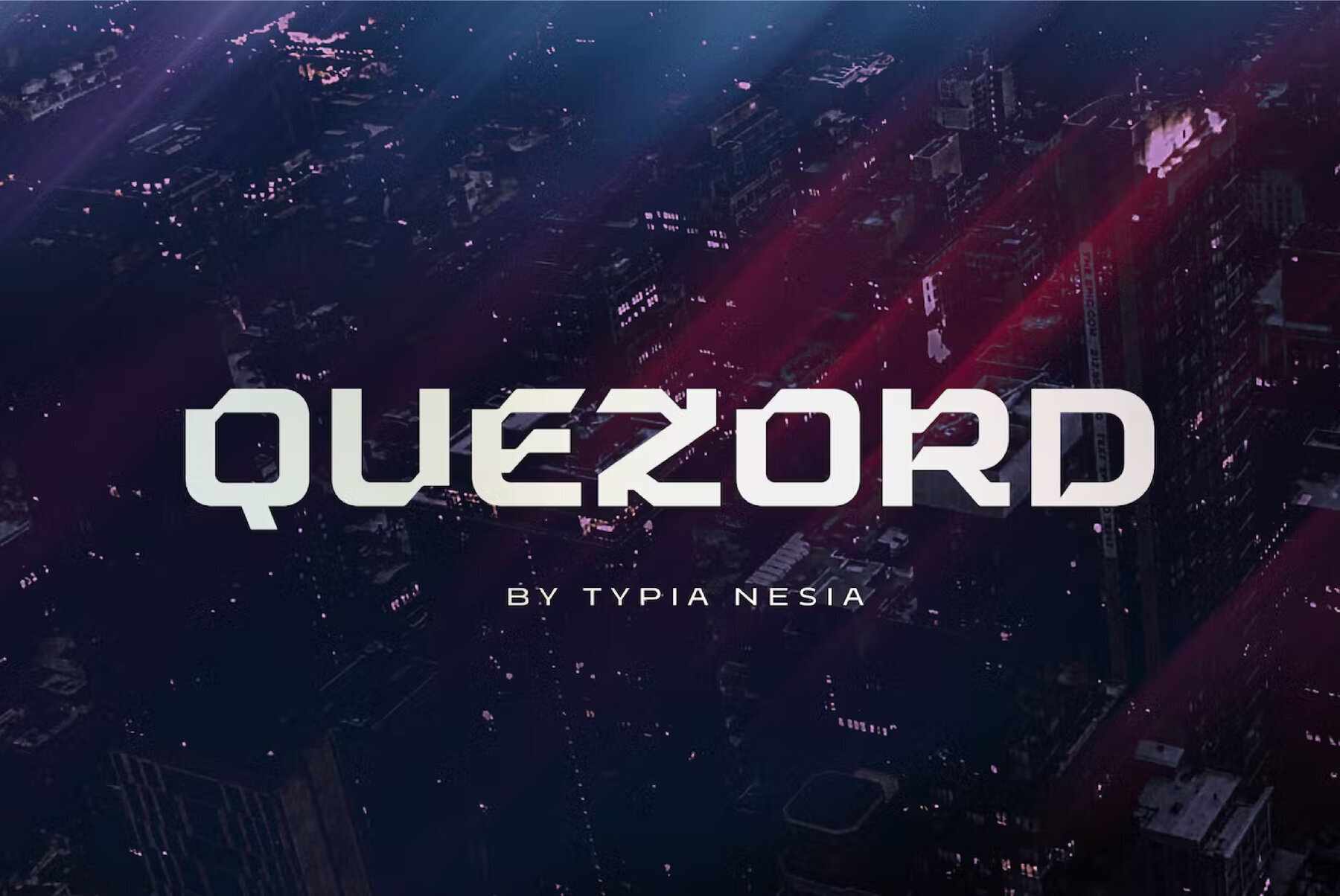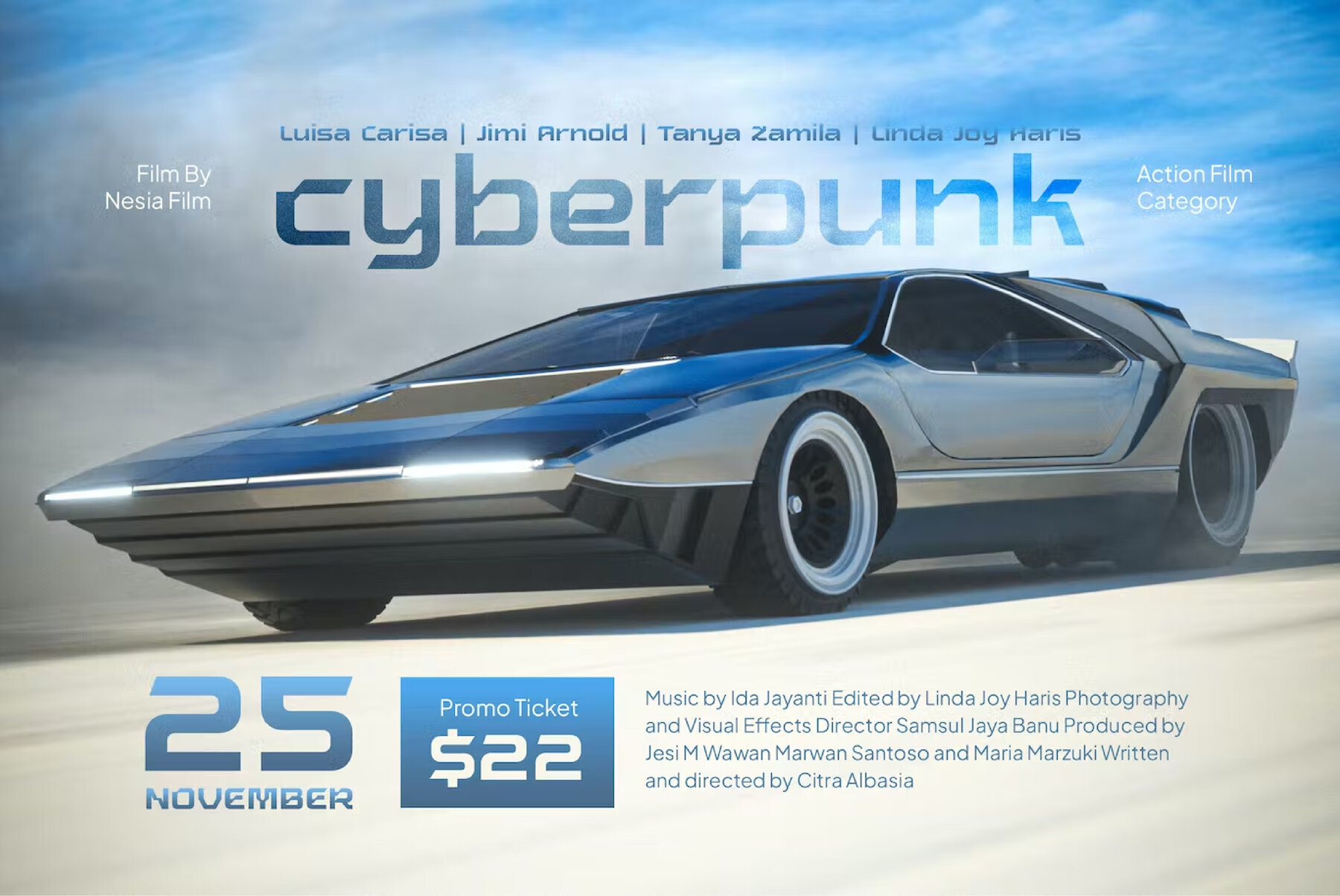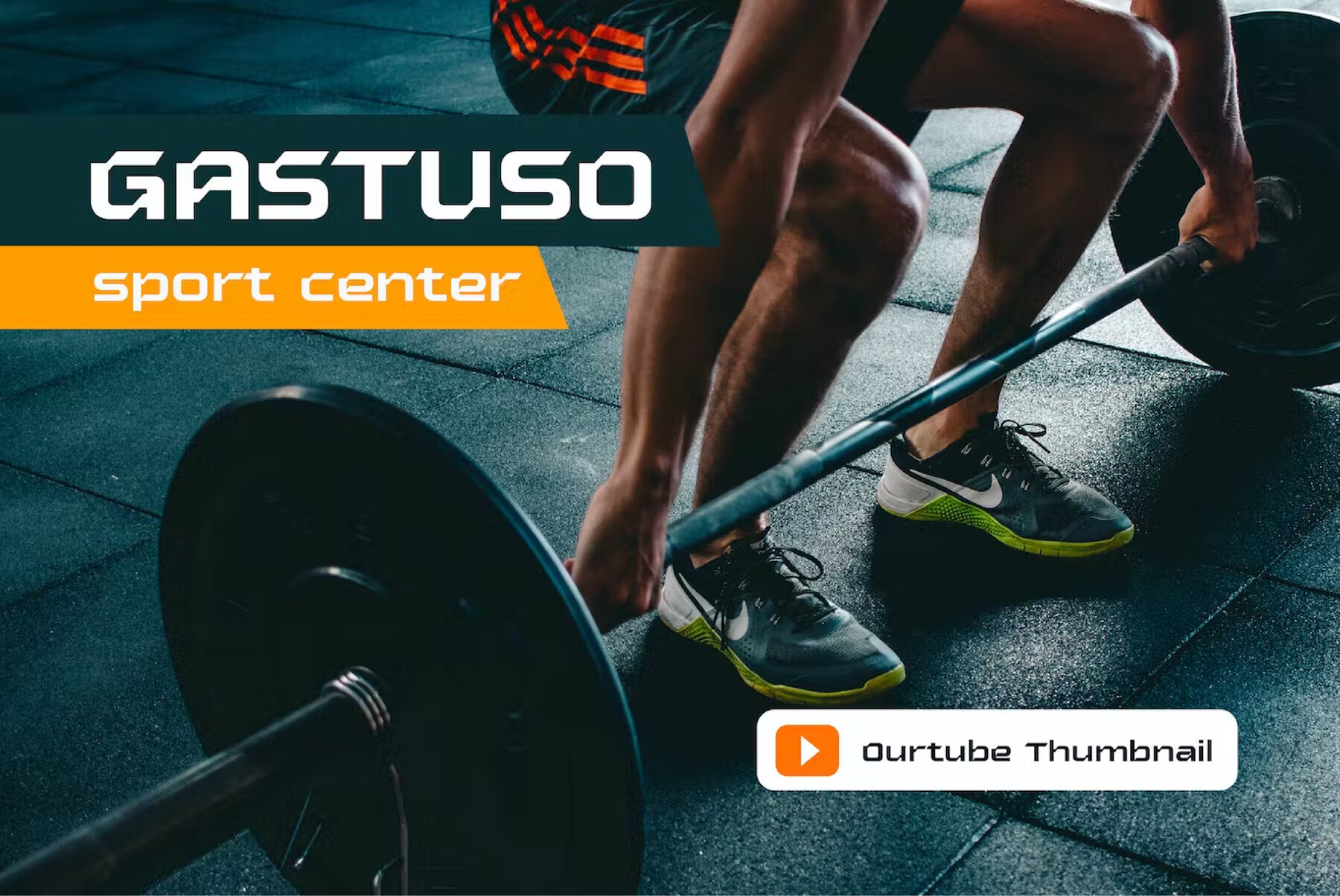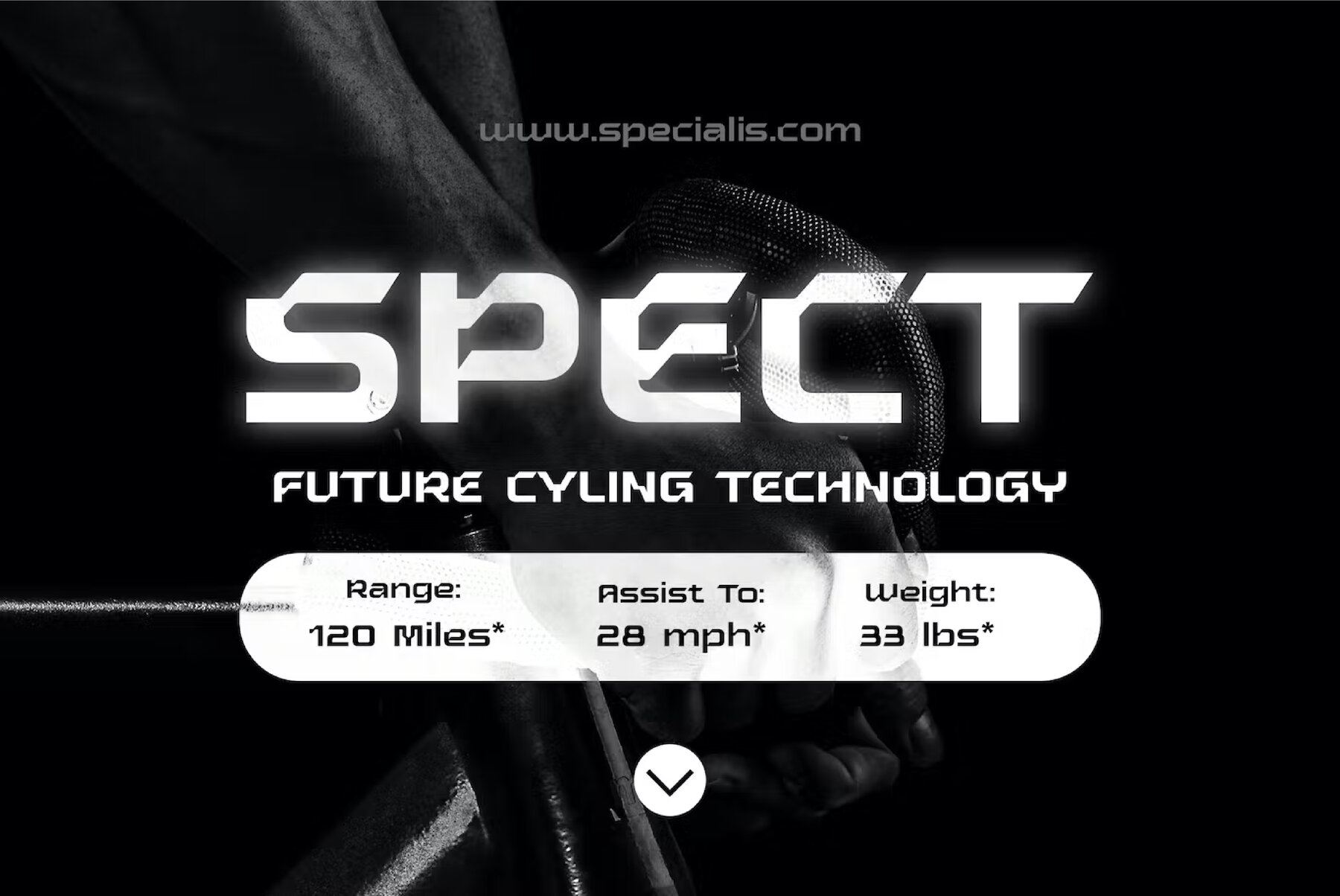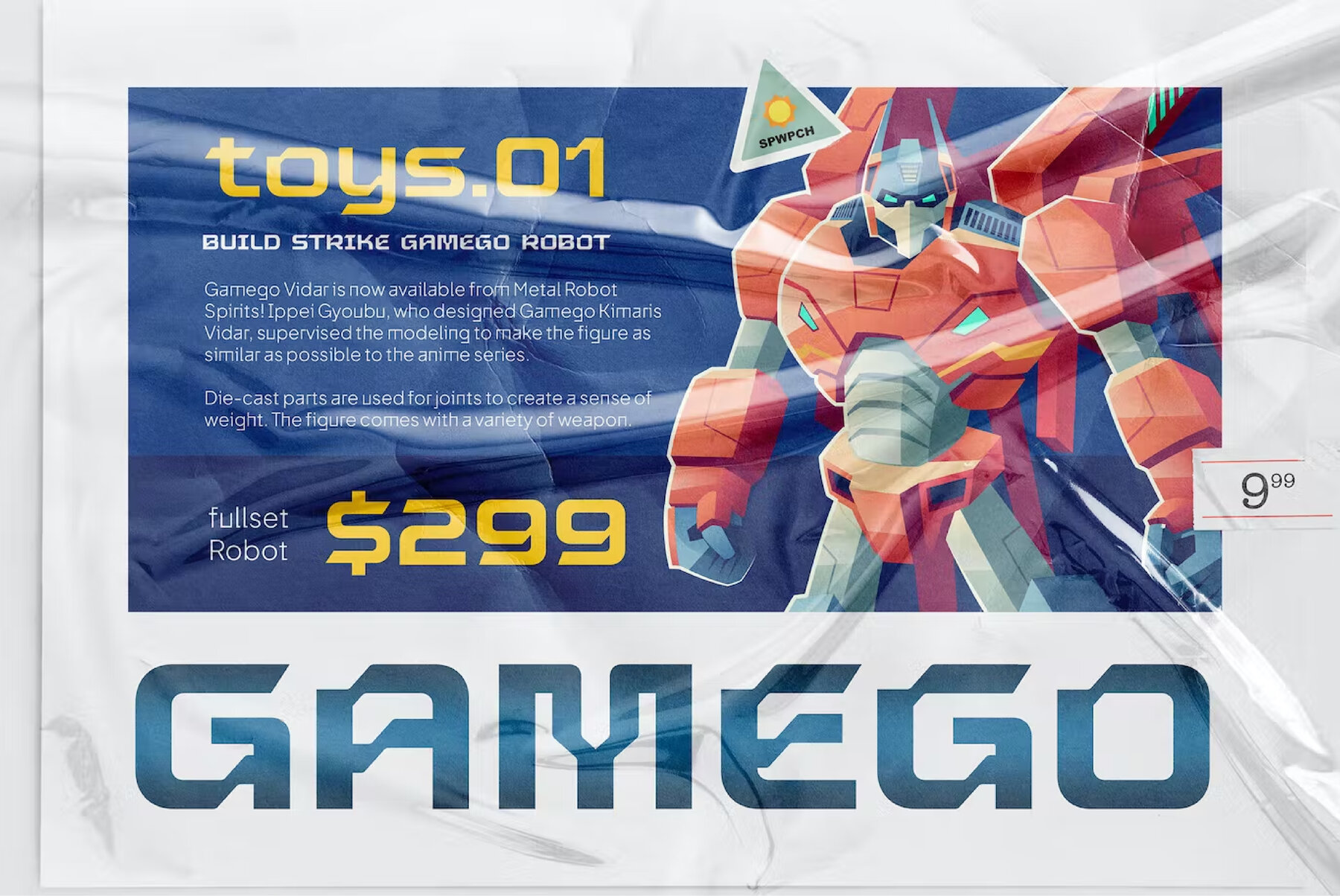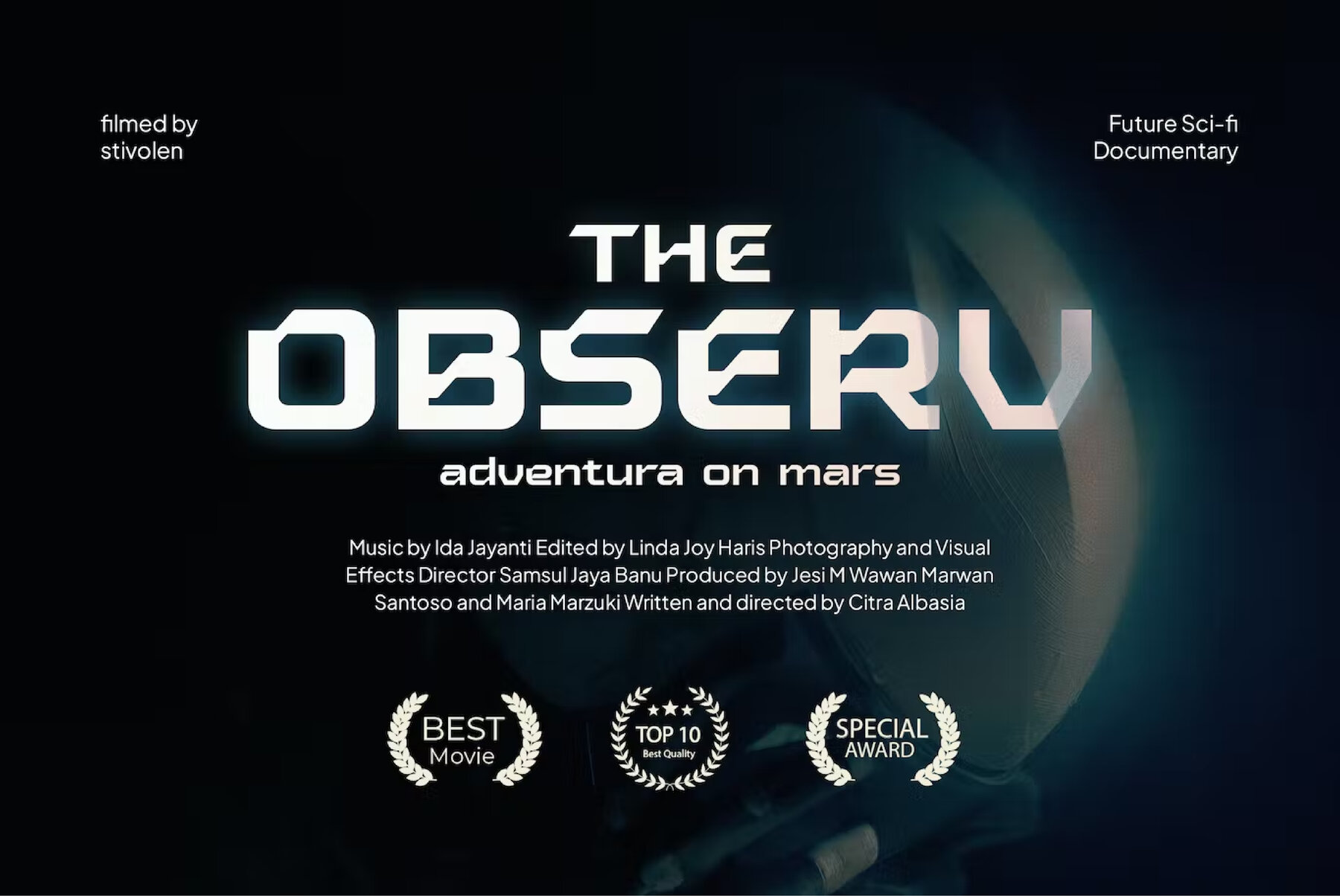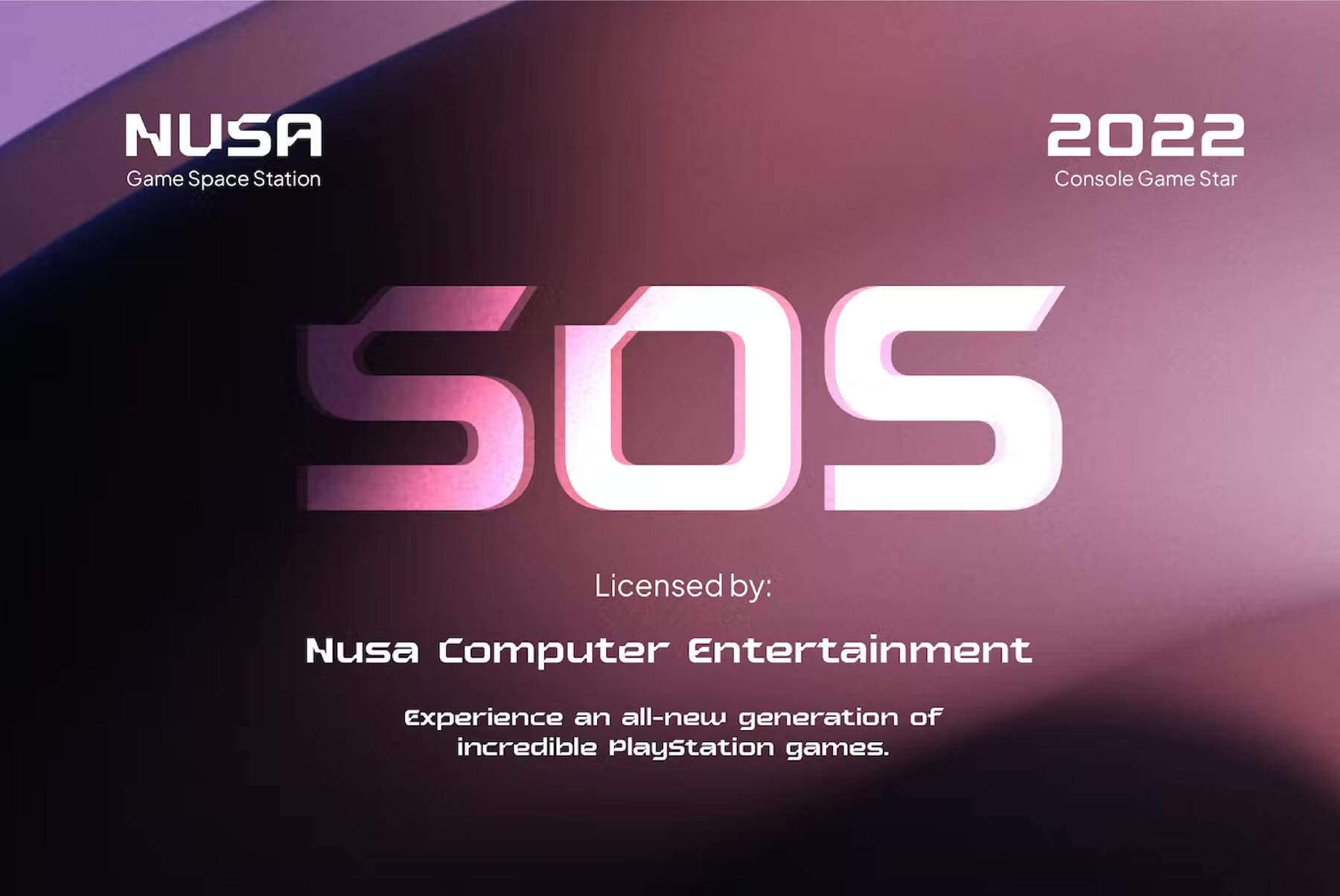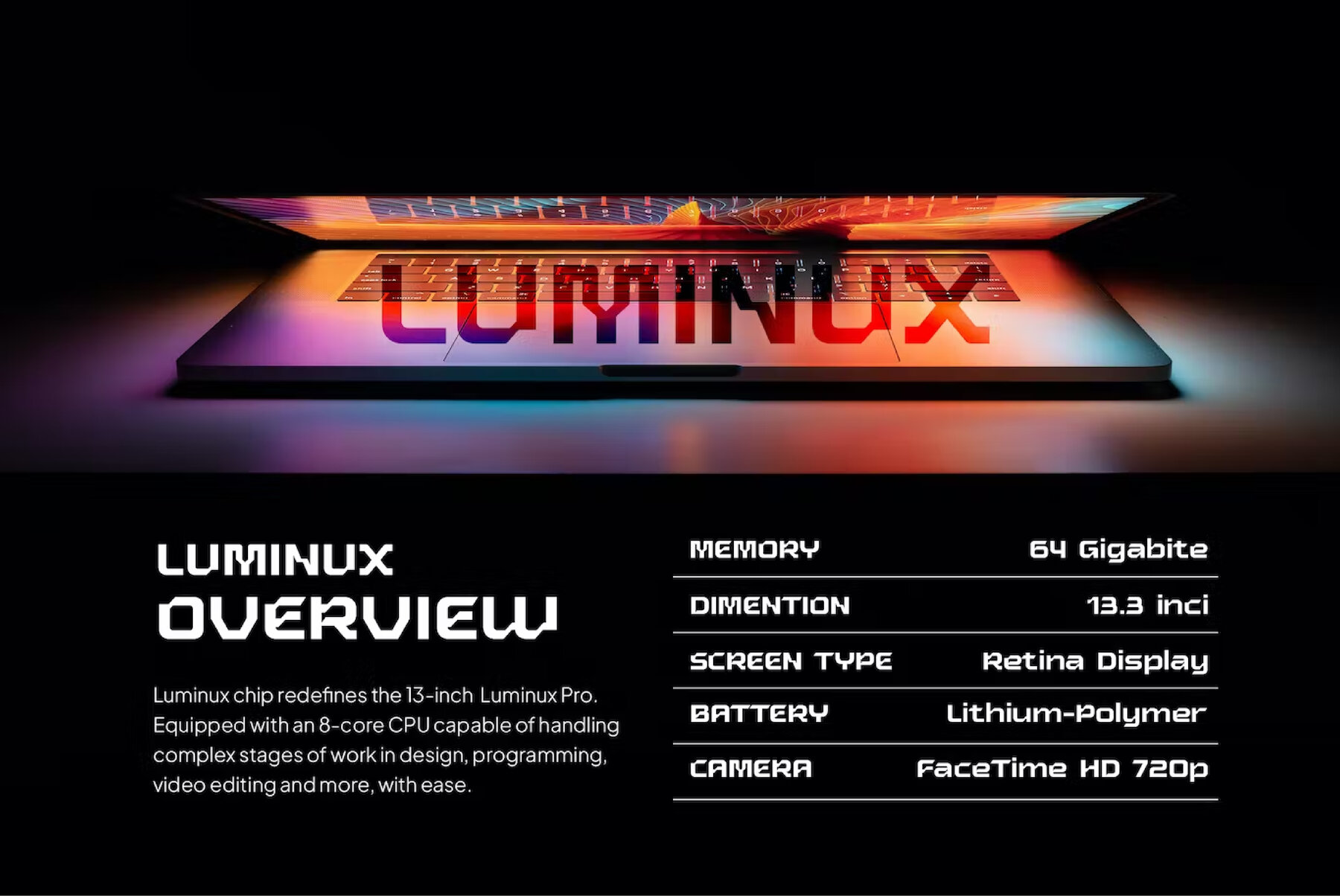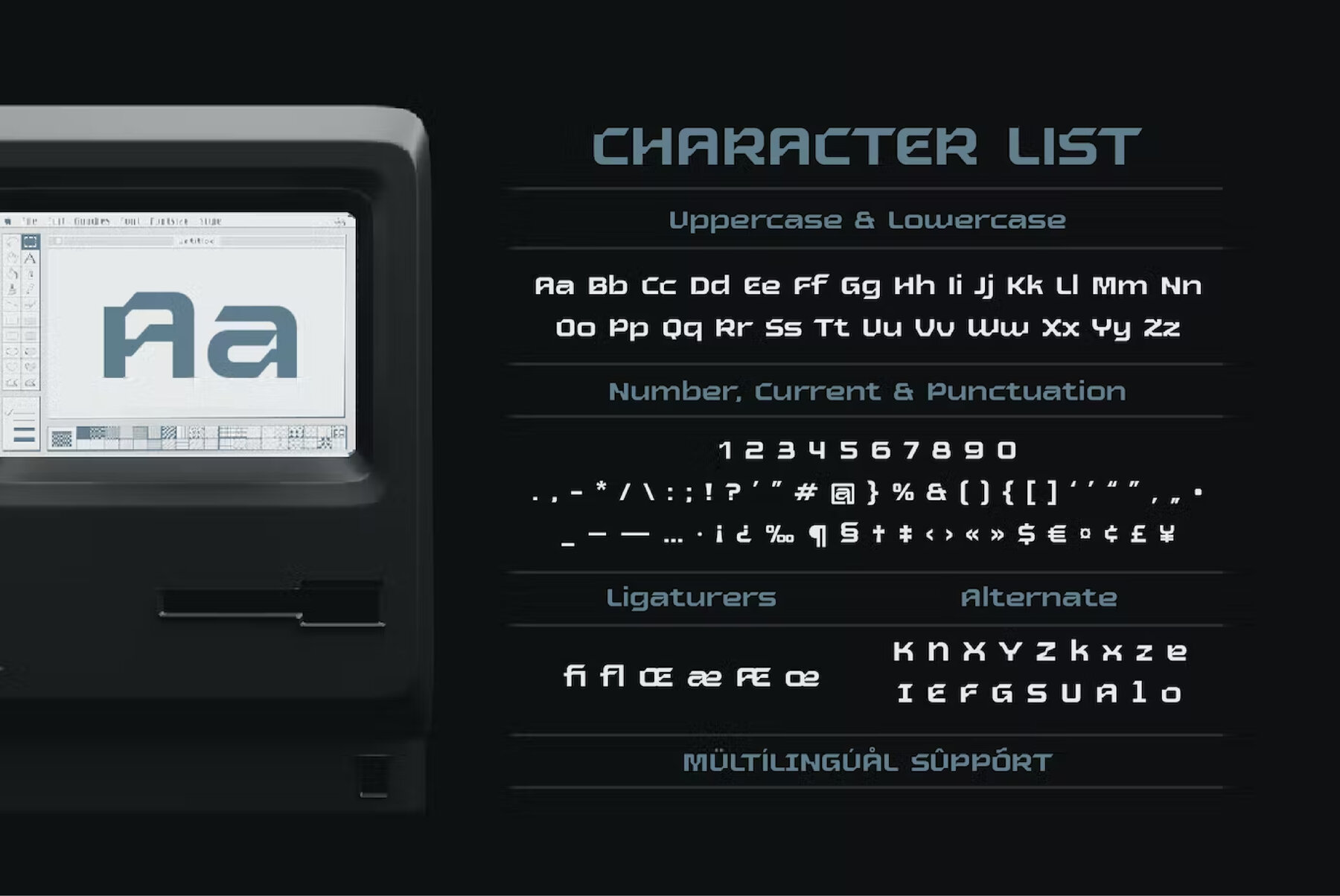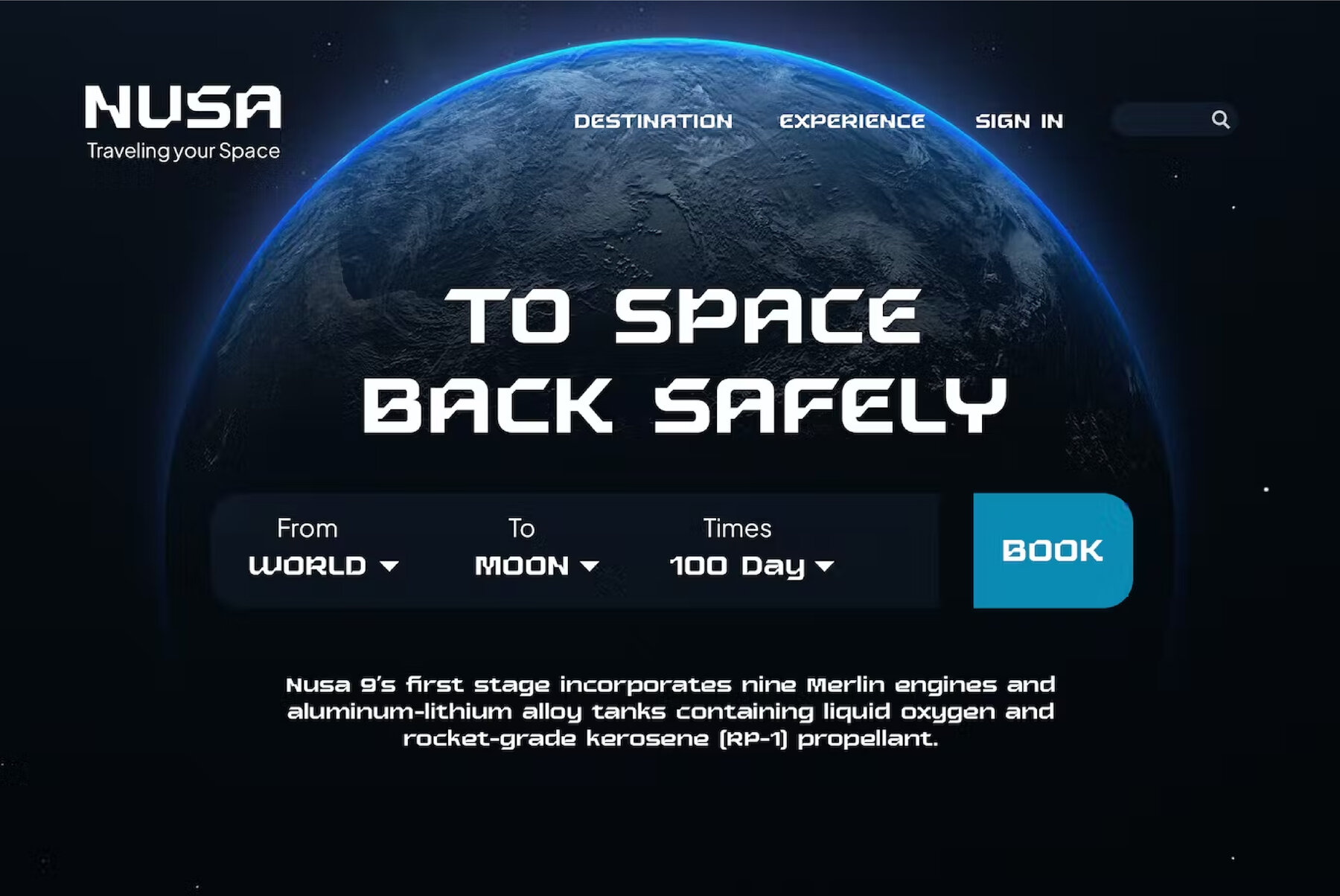
Quezord Font
Quezord Regular
Quezord is a techno futuristic and sci-fi-inspired game font that makes a bold statement with its black display sans serif style. Ideal for a range of applications, Quezord enhances your projects with its striking design.Quezord: A Bold Display Sans Serif for Futuristic Designs
Perfect for Various Applications